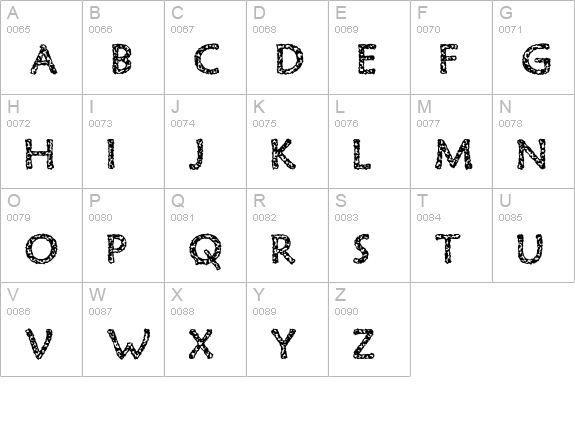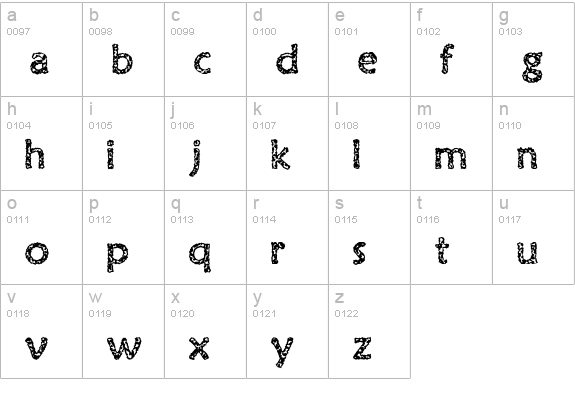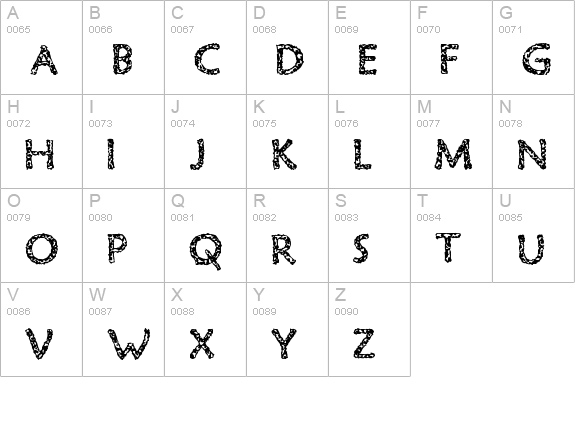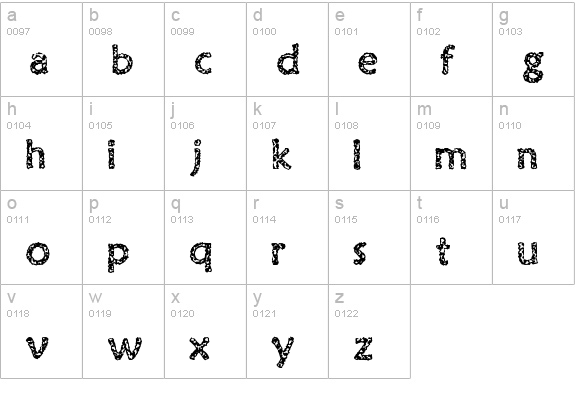
Old Virus Font Details
The Old Virus font is a captivating and unique typeface that exudes a vintage charm with a modern twist. Its intricate details and nostalgic appeal make it perfect for a variety of design projects, from branding to editorial design. The font's distinctive character set and stylish letterforms will add a touch of sophistication to any creative endeavor. Best of all, the Old Virus font is available for free download at FontsMarket.com. This means that you can easily access this stunning font and incorporate it into your designs without any cost. Don't miss out on this opportunity to enhance your projects with the timeless elegance of the Old Virus font. Download it today and let your creativity shine!